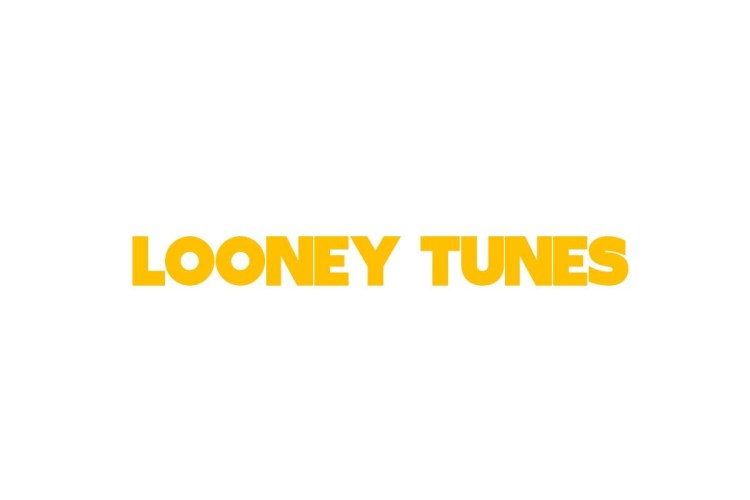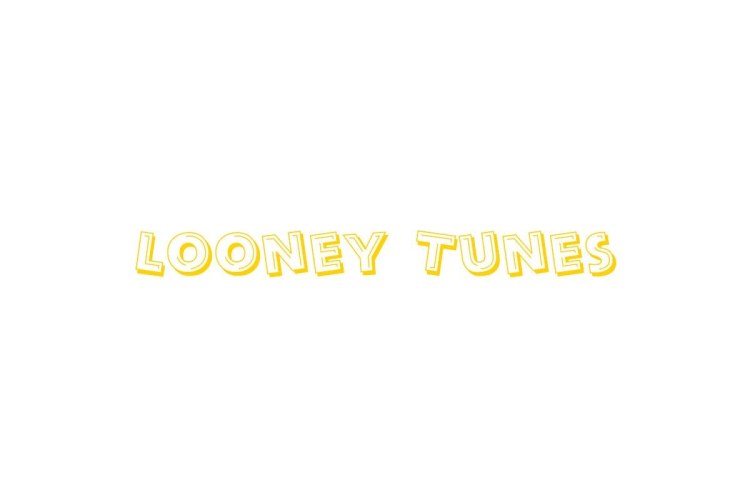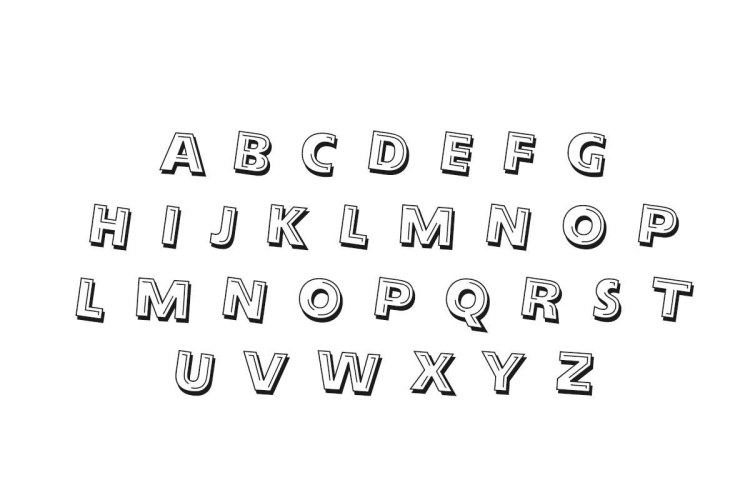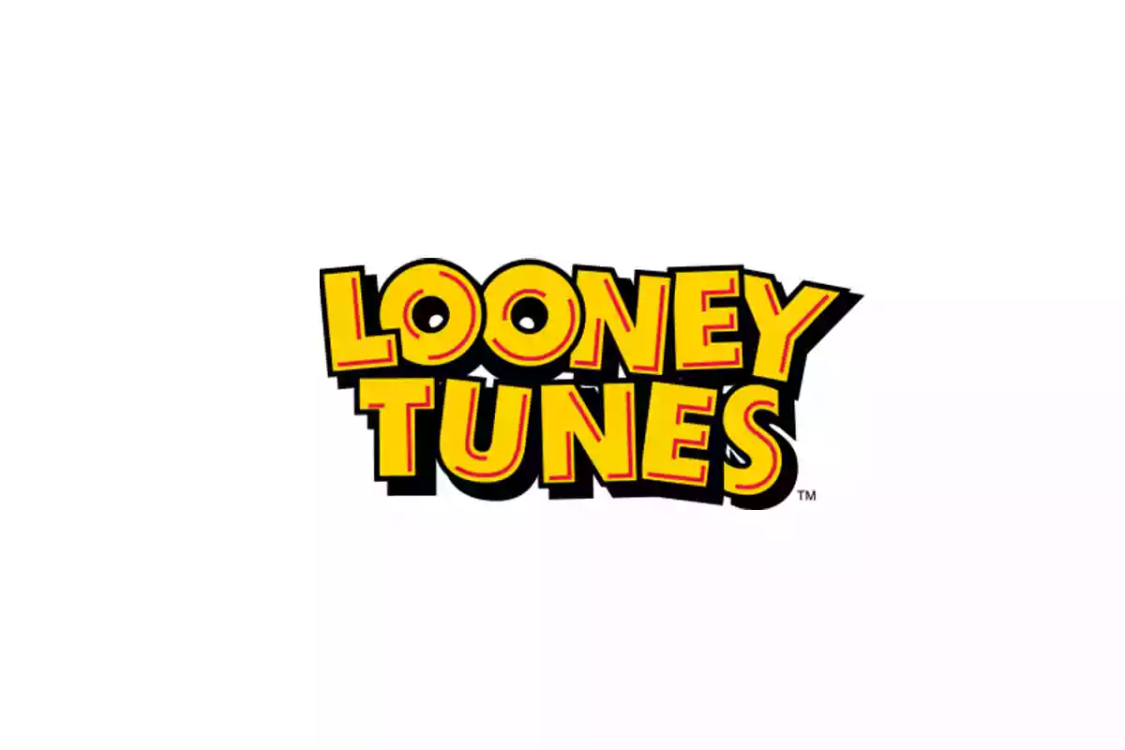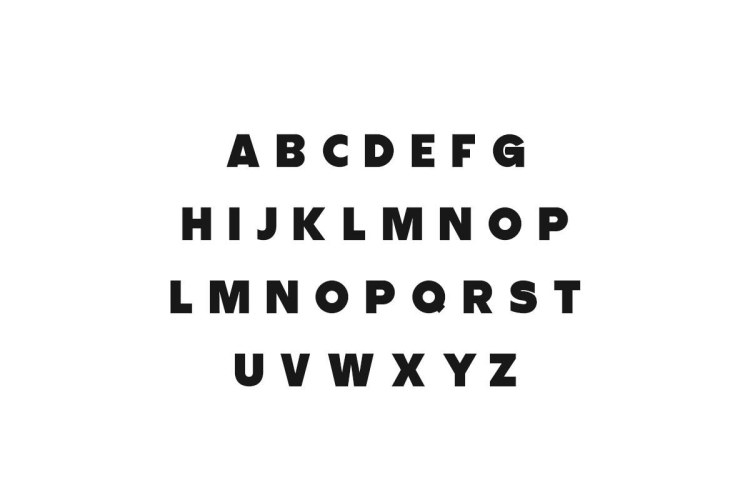
Looney Tunes Font
The distinctive typeface of the Looney Toons font is well-known for its association with the iconic cartoon of Warner Bros. The Looney Toons franchise kept audiences amused to the maximum levels for decades with the help of their dearest characters, funny one-liners and other funny stuff. The title card font, merchandise, marketing, and movie posters have taken a specific look that has not only been a success in its presentation but also has become the representation of the Looney Tunes Brand.
The Looney Tunes font possesses a distinct mark of its own. Its bold and cheerful style matches the cartoon’s non-sense and playfulness. It often occurs that the letter shapes are oversized, they have atypical outlines, and each letter differs from the rest. Such features will recognize characters like Bugs Bunny, Daffy Duck, and Porky Pig.
A standardized font was never developed for the Looney Tunes brand, but different versions and adaptations were developed to suit different tasks and design styles. Nonetheless, they all possess the familiar characters epitomising the Looney Toon world: exaggerated fonts, active letter spacing, and slightly animated motion.
The iconic font is used in the series’ title cards, merchandise, branding, and promotional materials. Its popularity stems from its element of playfulness and nostalgia, making it a good choice for fans who want to inject a pinch of the Looney Tunes feel into their projects.
Besides the situation when it is used for creating official merchandise and branding, the font also became a cultural icon, and there are people from all around the globe who know this font and adore it. This movie is paralleled by its villainy, Disney’s beloved characters, and timeless humour, which have helped to establish the film as a classic animation and childhood ‘”‘nostalgia”‘ symbol.
In the last couple of years, the Looney Tunes font has not only transformed to suit different mediums and design conceptions but also retained its trademark characteristics. Whether on retro-themed merchandise or in modern digital drawings, the Looney Tunes font will always be a beloved and timeless element of the unforgettable cartoon series.
Where Looney Tunes Font works best
Looney Tunes Font is built for size: event posters, hero headlines and billboard-style layouts.
High contrast display type like Looney Tunes Font reads instantly in thumbnails and motion graphics.
What is Looney Tunes Font good for?